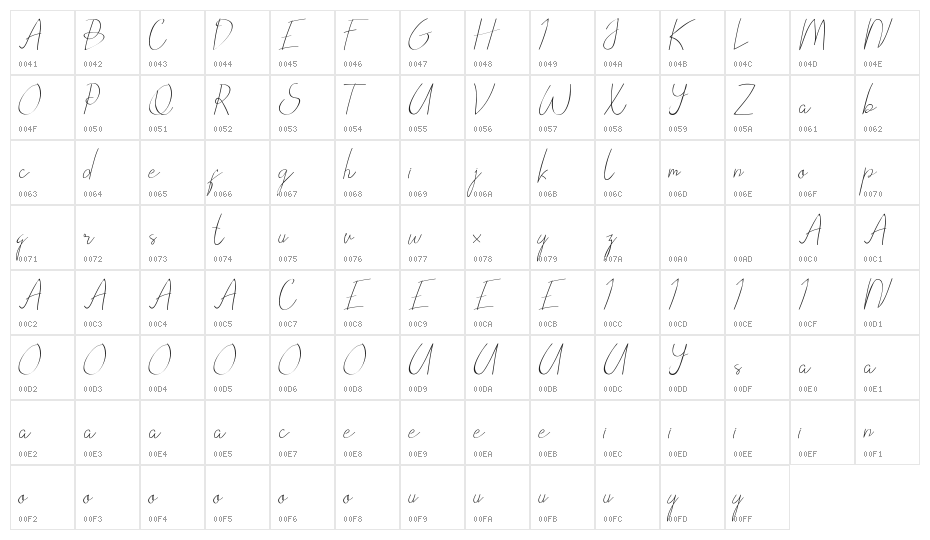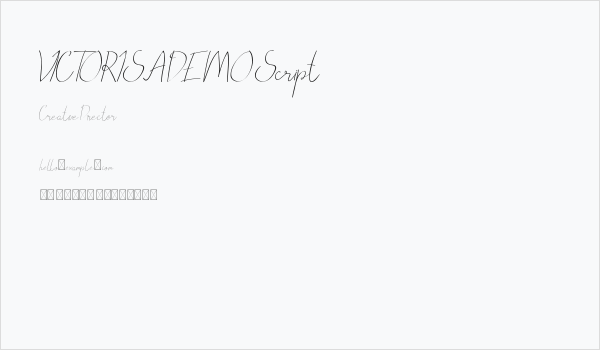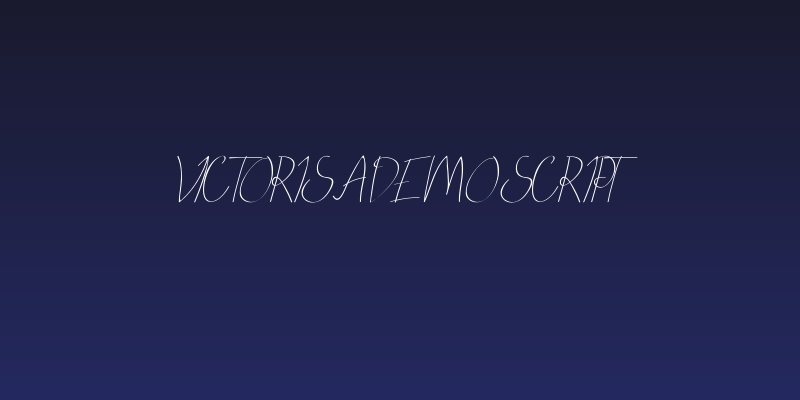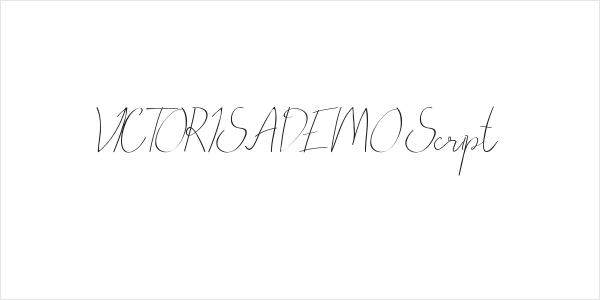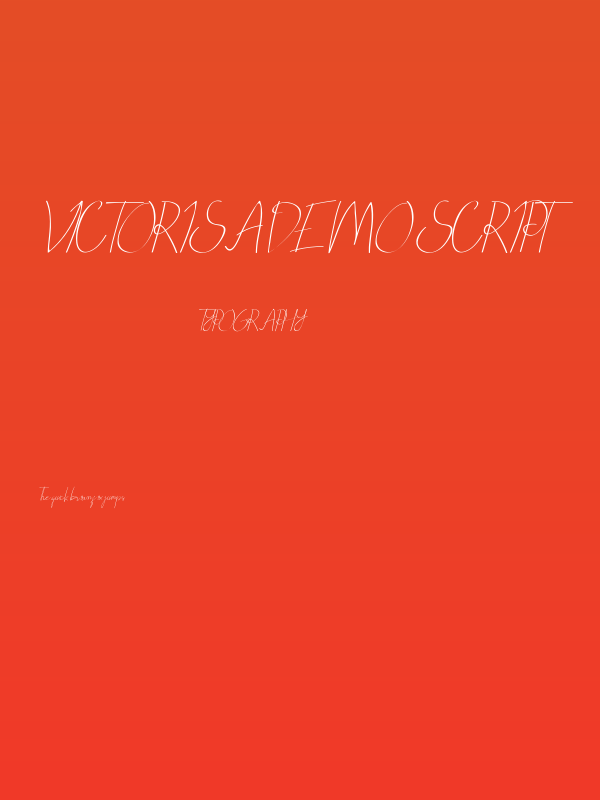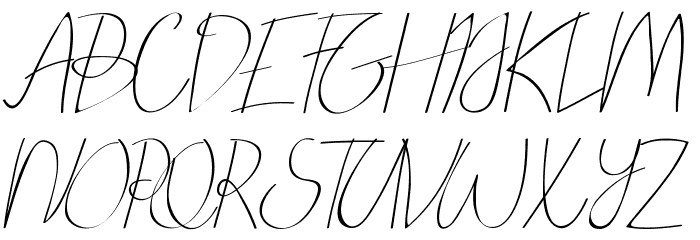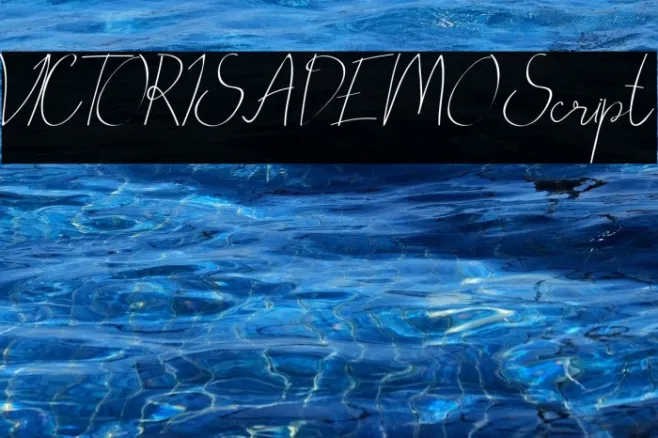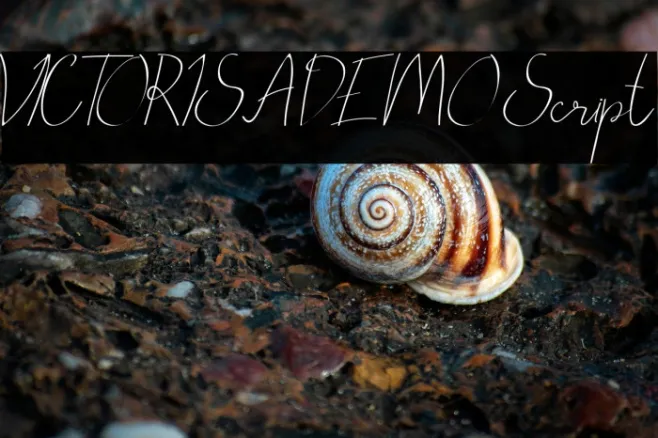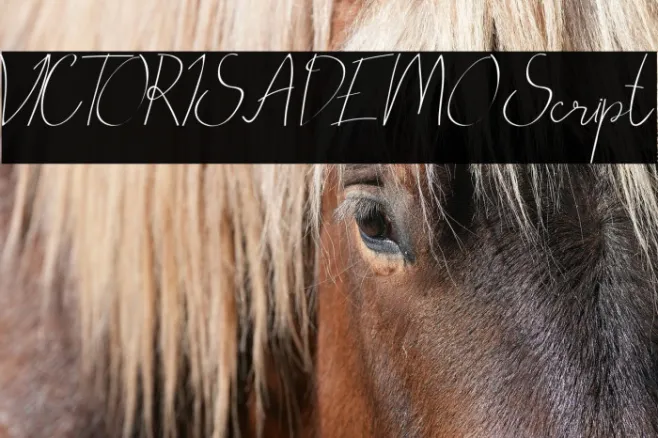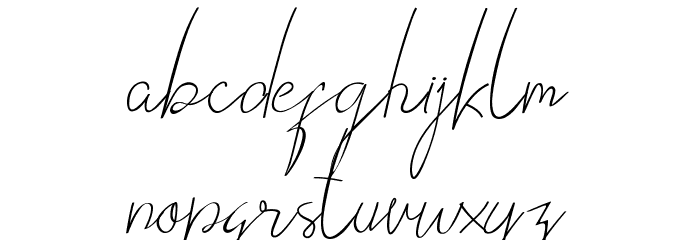
VICTORISA DEMO Script Font
VICTORISA DEMO Script Description
This font features a delicate and elegant script style with a handwritten appearance. The letters are characterized by their thin, flowing lines and graceful curves, giving a sense of fluidity and movement. The uppercase letters are tall and slightly narrow, while the lowercase letters maintain a consistent height, creating a harmonious balance. The overall design is airy and light, with generous spacing between characters that enhances readability. This font exudes a sense of sophistication and charm, making it suitable for a variety of creative applications.
| Proposed Projects | Ideal for wedding invitations, greeting cards, personal branding, and elegant packaging designs. |